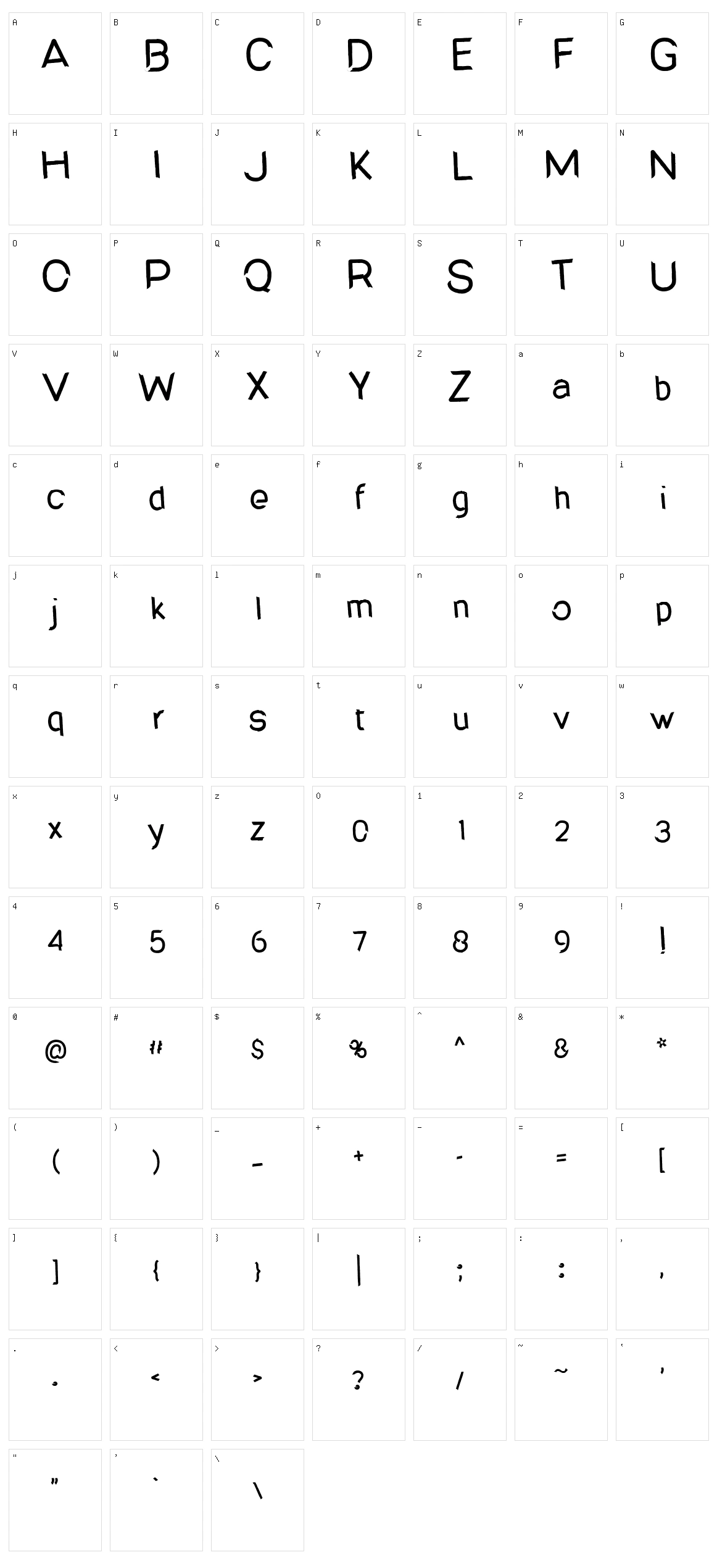
The free font Road Paint is carefully designed by Muhammad Nichal Zaki, showcasing a thoughtful balance of creativity and usability and falls under the Distorted font style. When you download the ZIP file, it contains only 82.67 KB of font files, making it lightweight and quick to download. Please review the license details below to understand permitted usage and distribution rights. If license information is not available, we recommend using this font for personal projects only or contacting the author directly for commercial usage permissions.